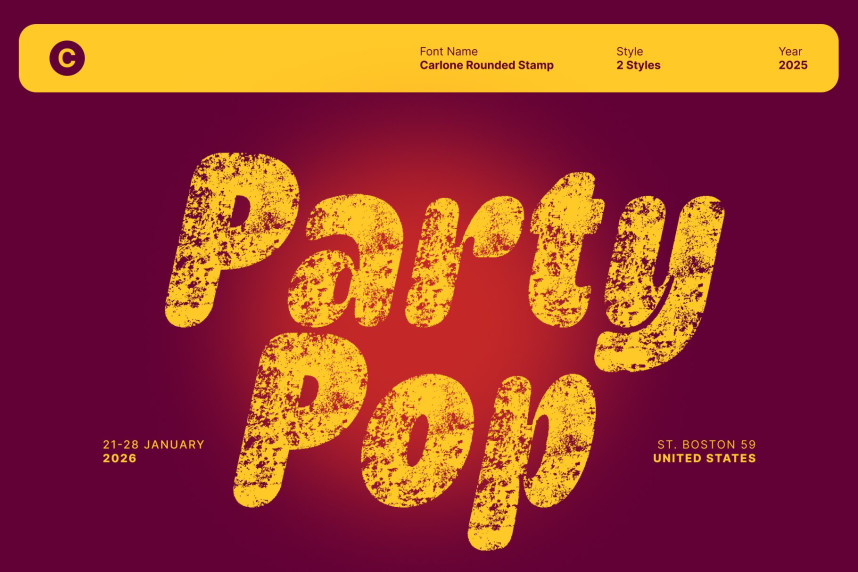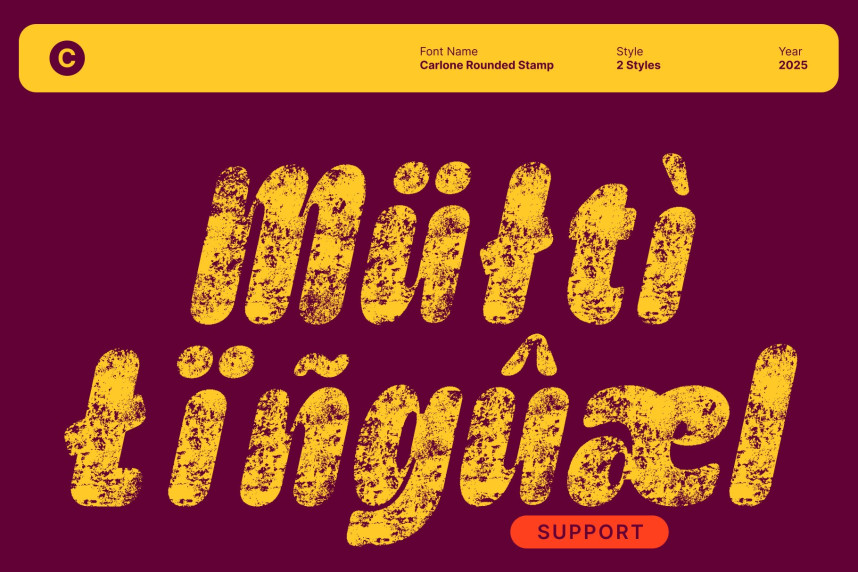
Carlone Rounded Stamp Font
Carlone Rounded Stamp Font – Bold, Funky, and Full of Character Bold Shapes with a Playful Edge. This is a bold sans serif display font designed to make every message feel energetic and unforgettable. Its strong, clean shapes create a confident visual rhythm, while the rounded structure introduces a friendly and approachable touch.